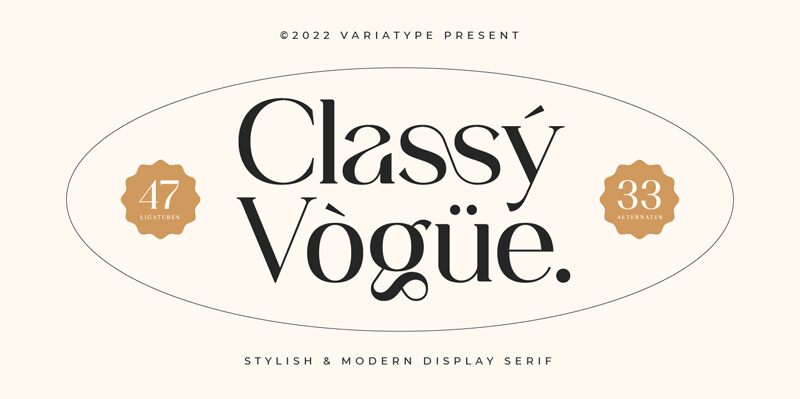
Classy Vogue by Variatype emerges as a quintessential serif font that speaks the language of elegance and sophistication. With its stylish display and luxurious flair, this typeface becomes an indispensable asset for designers aiming to infuse their projects with a sense of high-end fashion and timeless grace. Its carefully crafted characters are tailored to elevate branding initiatives, editorial content, and any creative endeavor seeking a touch of class.
Whether it's gracing the pages of a boutique magazine or showcasing the identity of an exclusive label, Classy Vogue promises to deliver an aura of exclusivity and finesse that will set your work apart in the realm of visual communication.
Classy Vogue